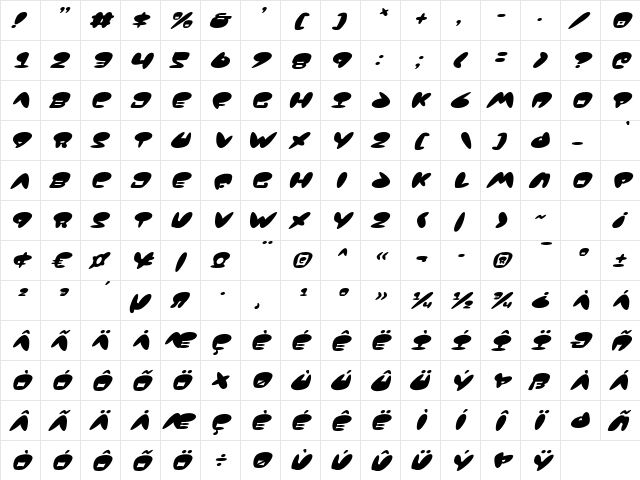
Jackson Italic Italic
Design Context for Jackson Italic Typeface
Jackson Italic is a composed and adaptable typeface that performs quietly and consistently across a wide range of design contexts. The slanted form adds forward momentum and visual energy.
Pro Tip: Use Jackson Italic for emphasis, pull quotes, and subheadings where its slanted energy can add rhythm to the layout.